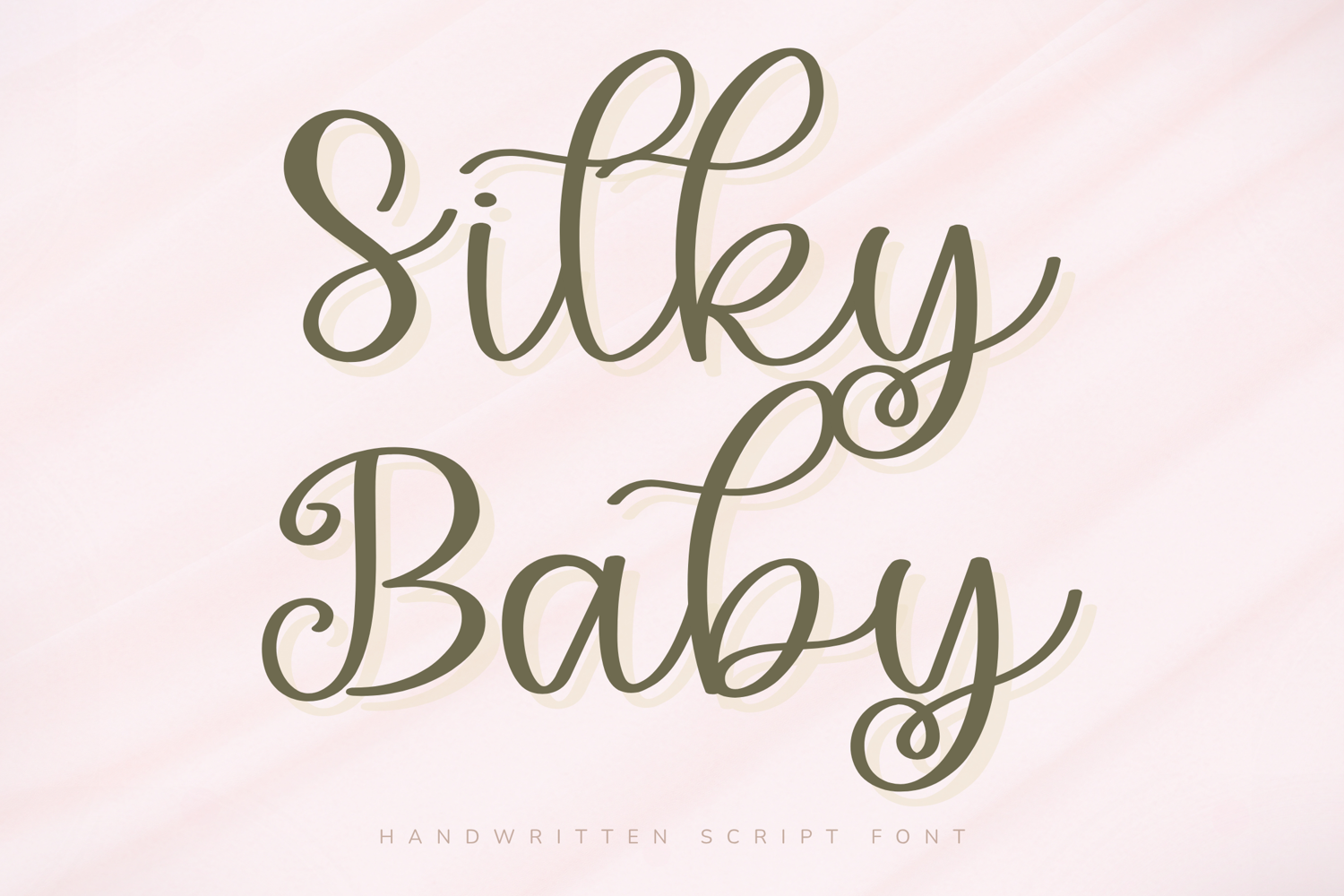
Silky Baby - Handwritten Script Font
Silky Baby – Handwritten Script Font
Silky Baby is a soft and elegant handwritten script font designed with flowing curves, graceful swashes, and a sweet feminine charm. Inspired by silky smooth pen strokes and delicate baby-soft aesthetics, this font delivers a luxurious handwritten look that feels romantic, stylish, and effortlessly pretty.
With its playful loops and smooth flowing connections, Silky Baby is perfect for branding, wedding invitations, Cricut crafts, beauty packaging, planner designs, social media graphics, and boutique products.
Key Features:
Uppercase and lowercase letters
Numbers and punctuation
Elegant handwritten script style
Flowing swashes and loops
Feminine and playful appearance
Smooth handwritten connections
Brand Mood:
Feminine
Soft
Elegant
Playful
Sweet
Luxurious
Design Style:
Silky Baby combines smooth handwritten movement with elegant looping swashes to create a font that feels soft, luxurious, and youthful. The flowing script style adds personality while remaining clean and highly versatile.